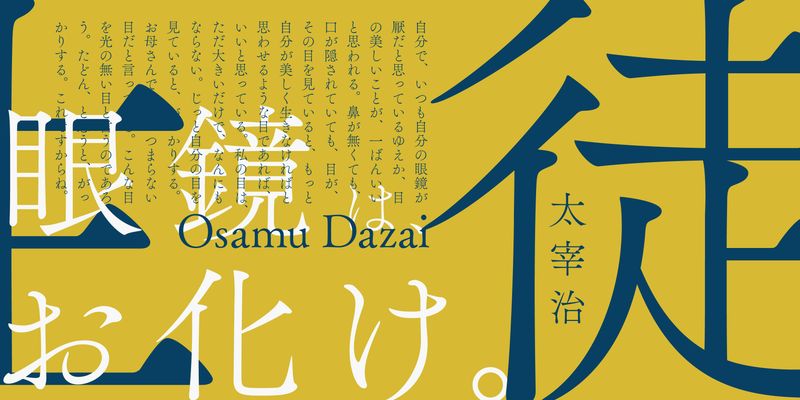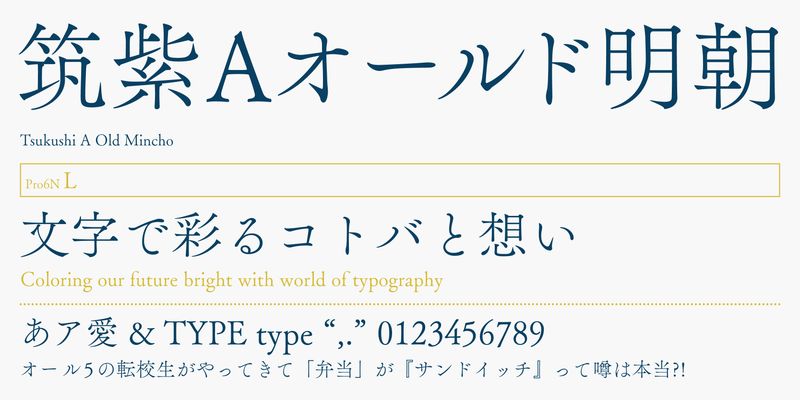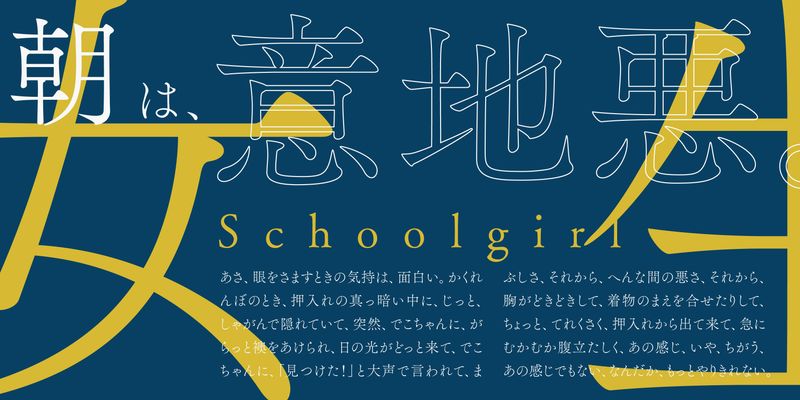
This old-style Mincho typeface has some key differences from the existing Tsukushi Mincho typeface. It is characterized by a beautiful starting lip at the head of some strokes, lively and dynamic upward tails (hane), and sweeping curved strokes (harai). Its smaller counter spaces enable each character to represent its natural, true and essential letter-form, not only its outer graphical appearance. When you compose text in this typeface, it is as if you can hear the sound of typography. The kanji and kana characters have a clearly visible dignified style and the Latin and number glyphs are designed in the style of Garamond.